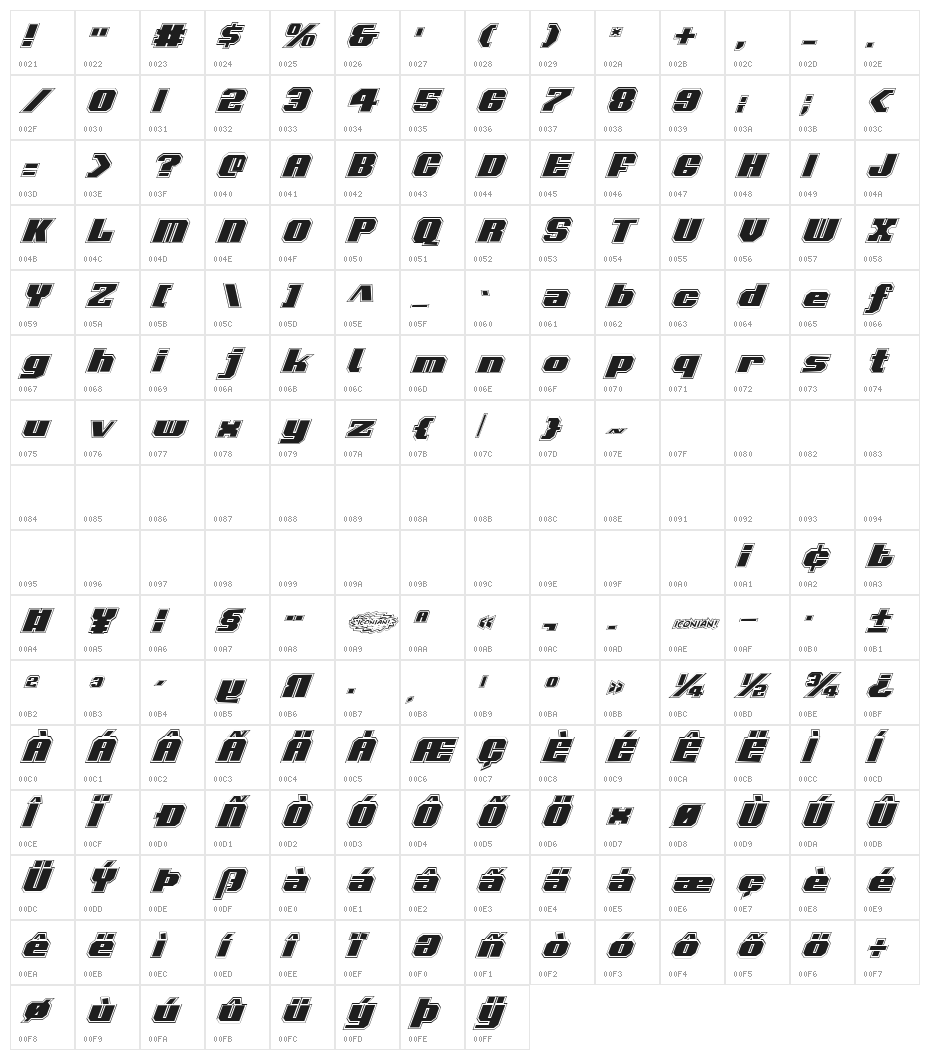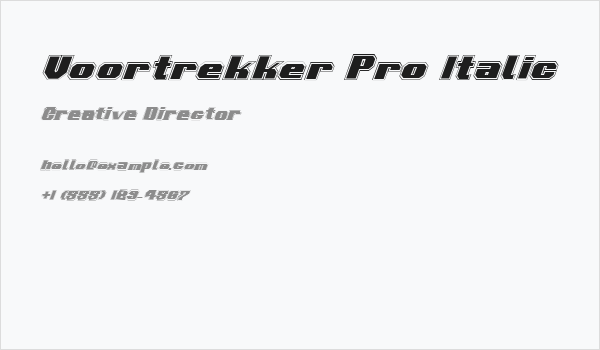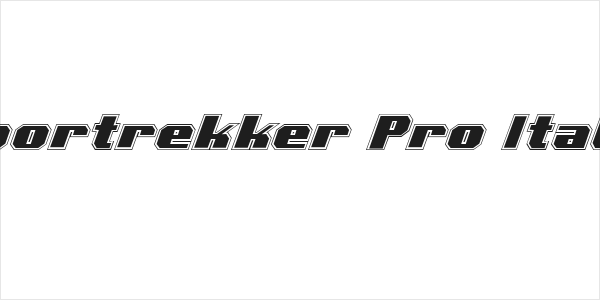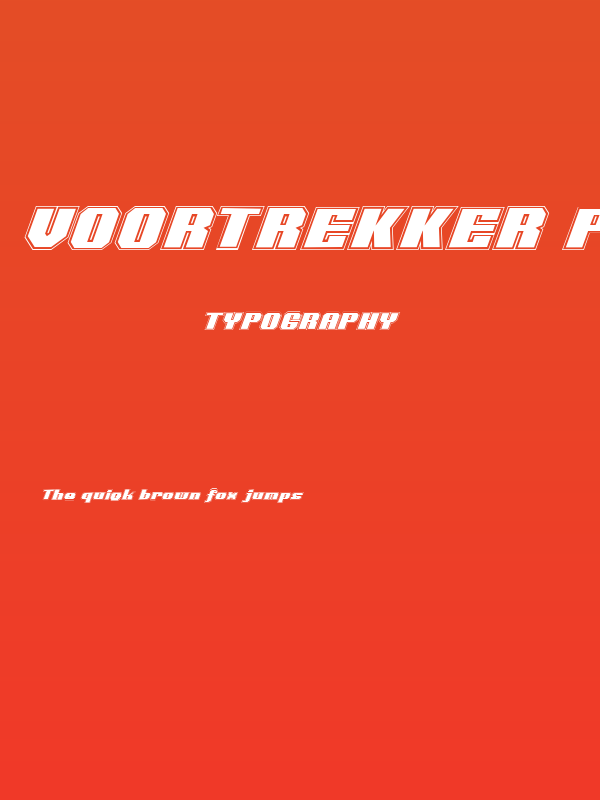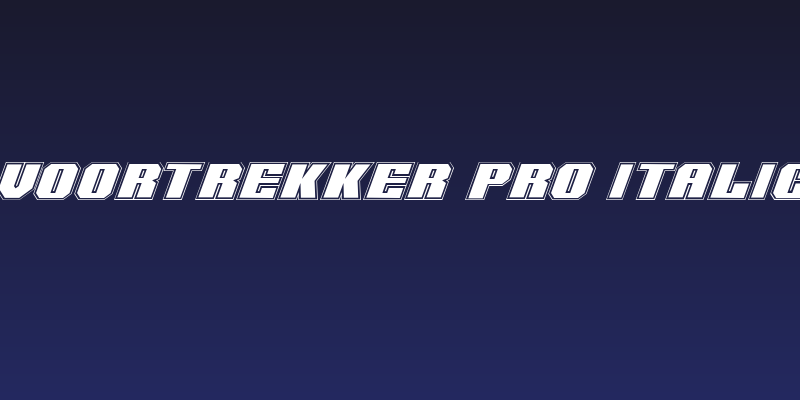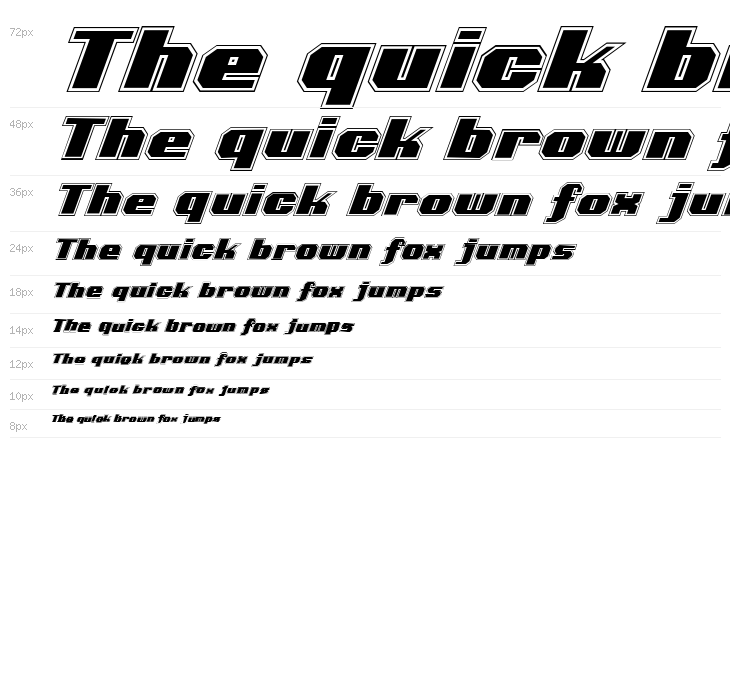
Voortrekker Pro Italic Font
Voortrekker Pro Italic Description
This font features a bold, italicized style with a strong, impactful presence. The characters are outlined, giving them a three-dimensional effect that enhances their visibility and adds a dynamic quality. The uppercase and lowercase letters maintain a consistent slant, emphasizing the italic nature of the font. The numerals and special characters follow the same stylistic approach, ensuring uniformity across all glyphs. The font's design is reminiscent of sports or automotive branding, with its robust and energetic appearance. The spacing between characters is moderately tight, contributing to its compact and cohesive look. This font is ideal for projects that require a bold statement, such as headlines, logos, or promotional materials.
| Proposed Projects | Suitable for sports branding, automotive logos, promotional materials, and bold headlines. |